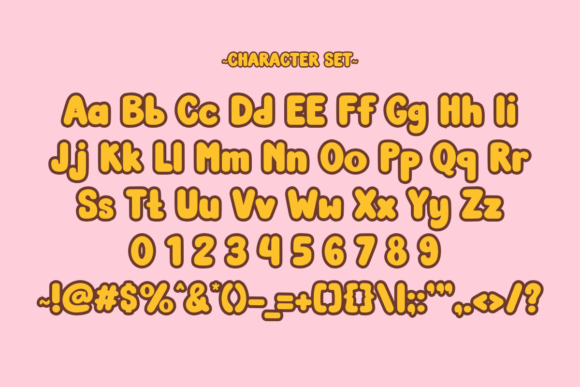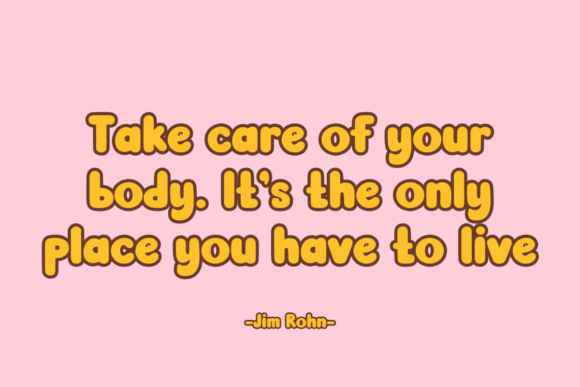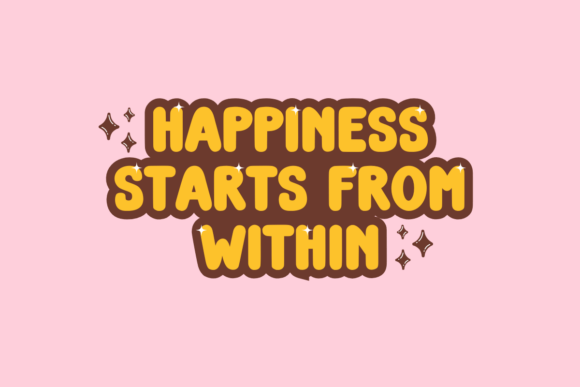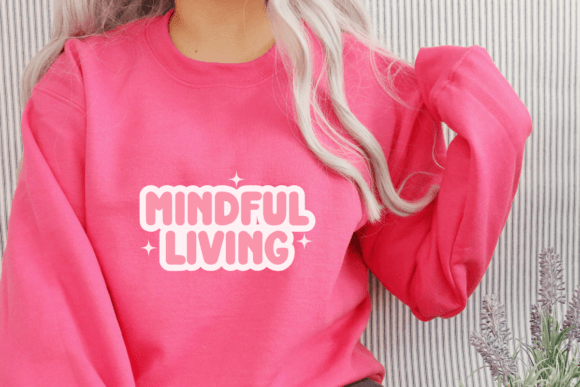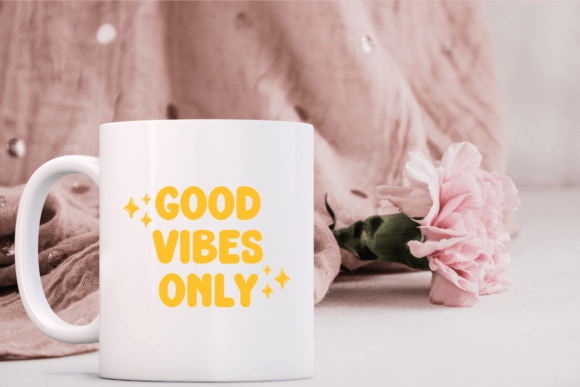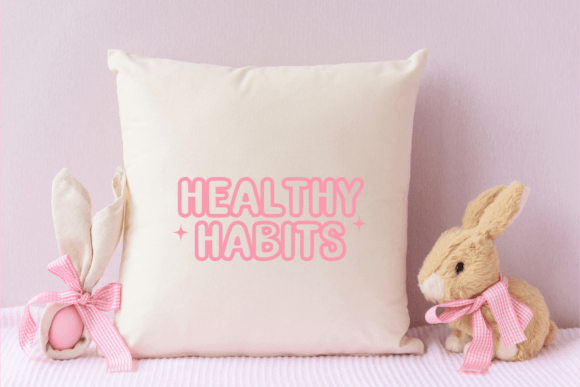
Introducing Healthy Lifestyle Font: The Modern, Bold Retro Bubble Display Font
Are you a designer, crafter, or digital artist looking for a font that can elevate your creative projects? Look no further than the Healthy Lifestyle Font, a modern, bold retro bubble display font that’s perfect for a wide range of applications. In this article, we’ll explore the features and benefits of this amazing font, and why it’s sure to become your go-to choice for all your design needs.
What is Healthy Lifestyle Font?
Healthy Lifestyle Font is a carefully crafted font that’s designed to add a touch of modernity and playfulness to your designs. With its bold, retro bubble style, this font is sure to grab attention and make your projects stand out. Whether you’re creating crafts, digital designs, presentations, or greeting cards, Healthy Lifestyle Font is the perfect choice.
Key Features of Healthy Lifestyle Font
- Modern and Bold: Healthy Lifestyle Font features a modern, bold design that’s perfect for making a statement.
- Retro Bubble Style: The font’s retro bubble style gives it a fun and playful vibe that’s sure to appeal to a wide range of audiences.
- Versatile: Healthy Lifestyle Font can be used for a wide range of applications, from crafts and digital designs to presentations and greeting cards.
- Easy to Read: Despite its bold and playful design, Healthy Lifestyle Font is easy to read, making it perfect for use in a variety of contexts.
Benefits of Using Healthy Lifestyle Font
So why choose Healthy Lifestyle Font for your design projects? Here are just a few benefits of using this amazing font:
- Adds a Touch of Personality: Healthy Lifestyle Font adds a touch of personality and whimsy to your designs, making them more engaging and memorable.
- Perfect for DIY Projects: The font’s bold and playful design makes it perfect for use in DIY projects, such as crafts and handmade cards.
- Great for Digital Designs: Healthy Lifestyle Font is also perfect for use in digital designs, such as social media graphics and blog posts.
- Easy to Pair with Other Fonts: The font’s simple and clean design makes it easy to pair with other fonts, allowing you to create unique and interesting typography combinations.
How to Use Healthy Lifestyle Font
Using Healthy Lifestyle Font is easy! Here are a few tips for getting the most out of this amazing font:
- Use it for Headings: Healthy Lifestyle Font is perfect for use in headings and titles, where its bold and playful design can really make an impact.
- Pair it with Other Fonts: Experiment with pairing Healthy Lifestyle Font with other fonts to create unique and interesting typography combinations.
- Use it for DIY Projects: The font’s bold and playful design makes it perfect for use in DIY projects, such as crafts and handmade cards.
- Try it in Digital Designs: Healthy Lifestyle Font is also perfect for use in digital designs, such as social media graphics and blog posts.